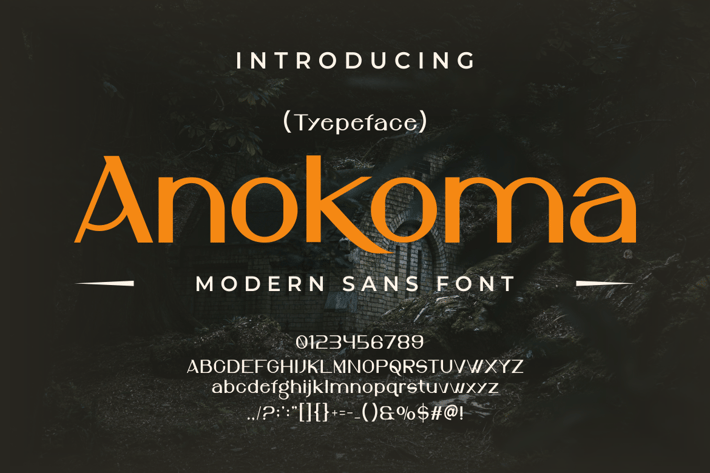
Anokoma Font
Introducing our new product Anokoma Font - Modern Font
Anokoma Font - Modern Font is a bold and authentic display font. The font is suitable for any branding project like logo, t-shirt printing, esport, and many more. outstanding in a wide range of contexts.